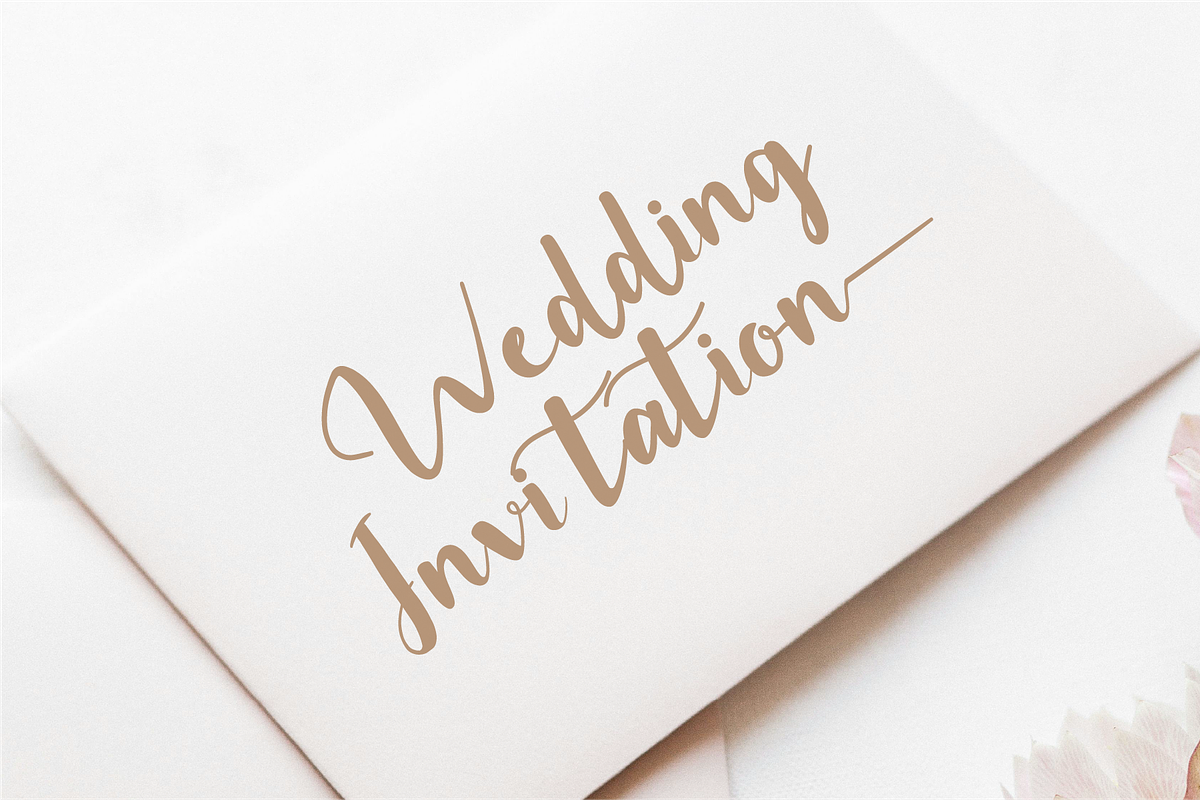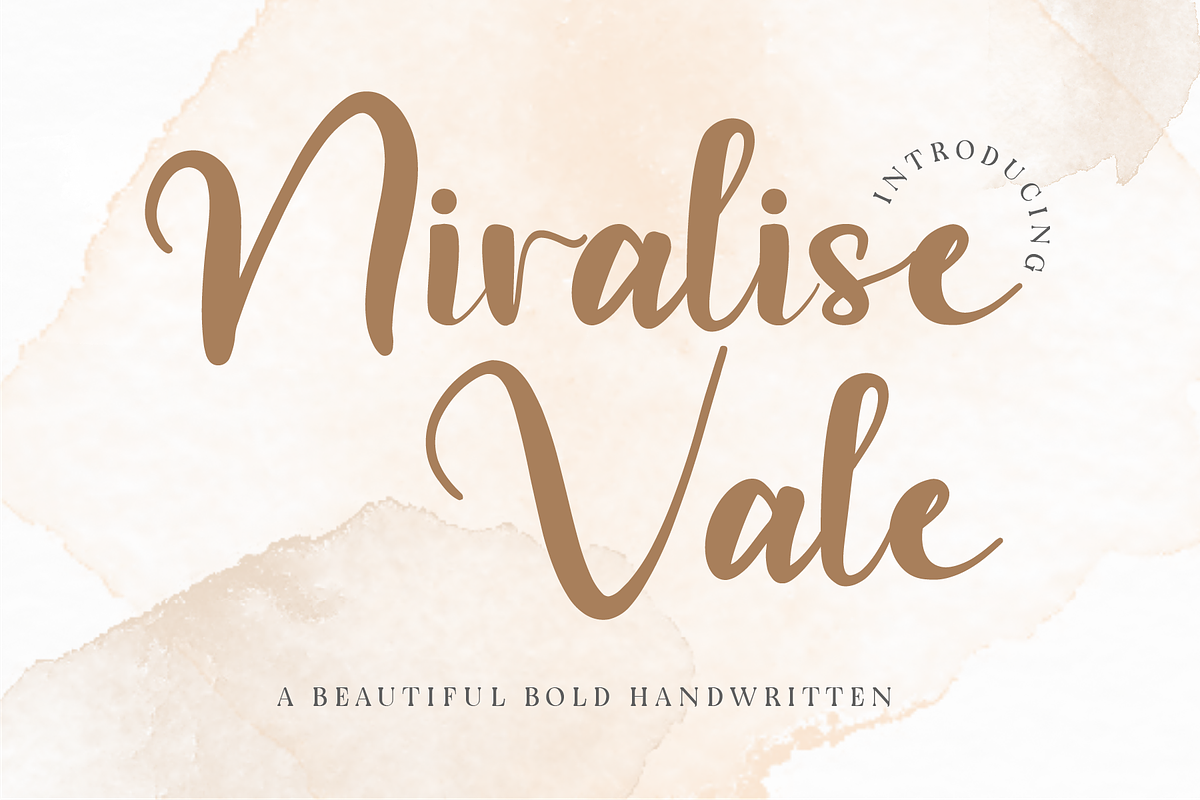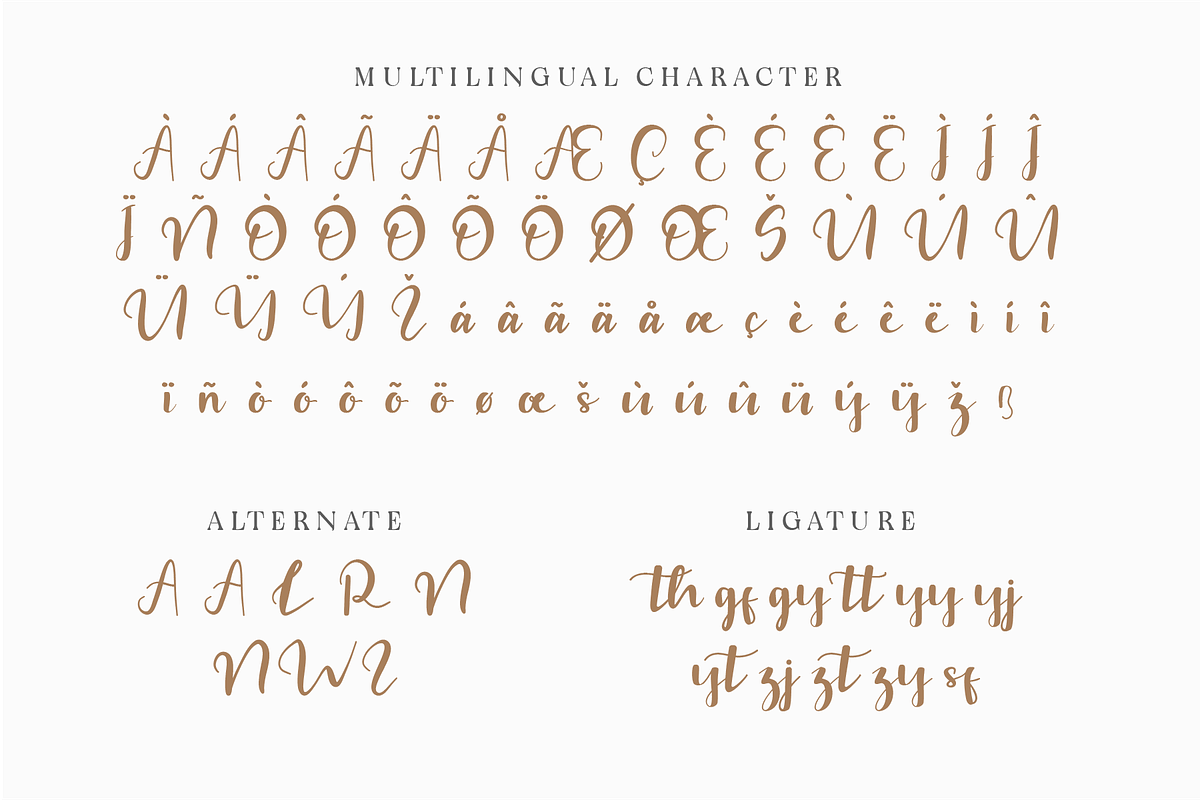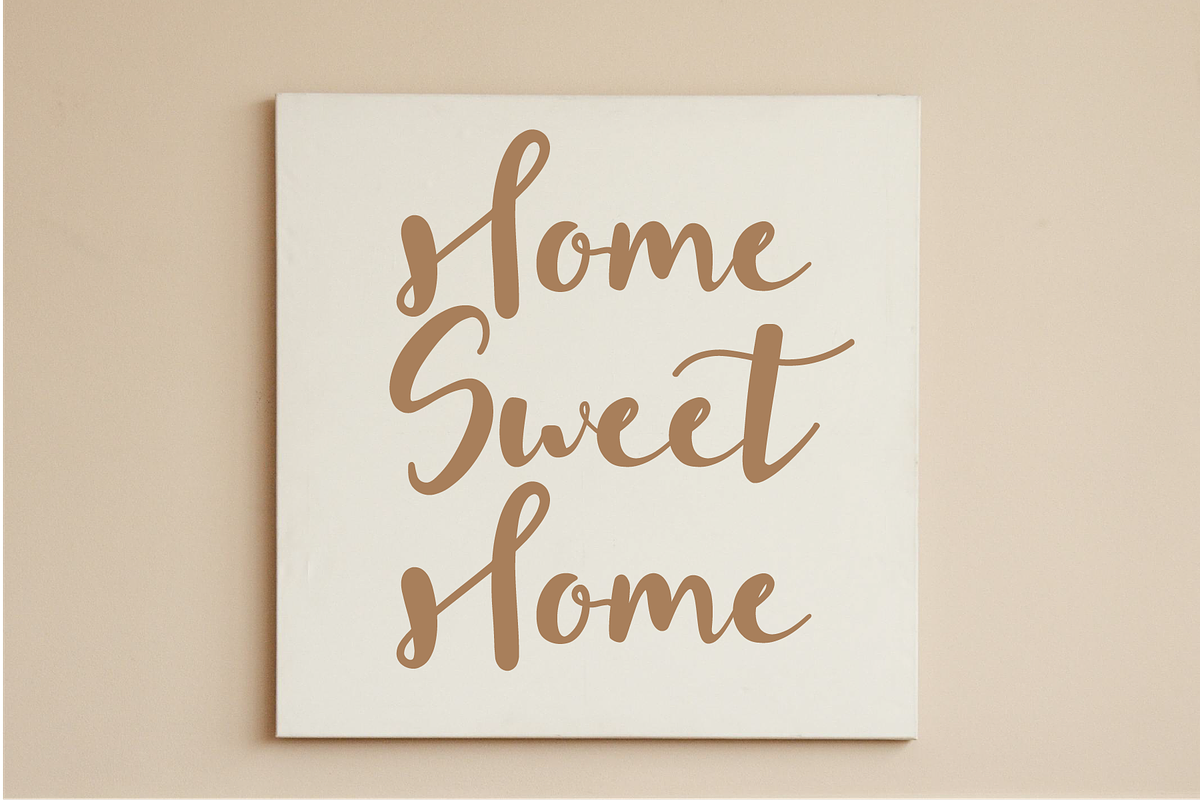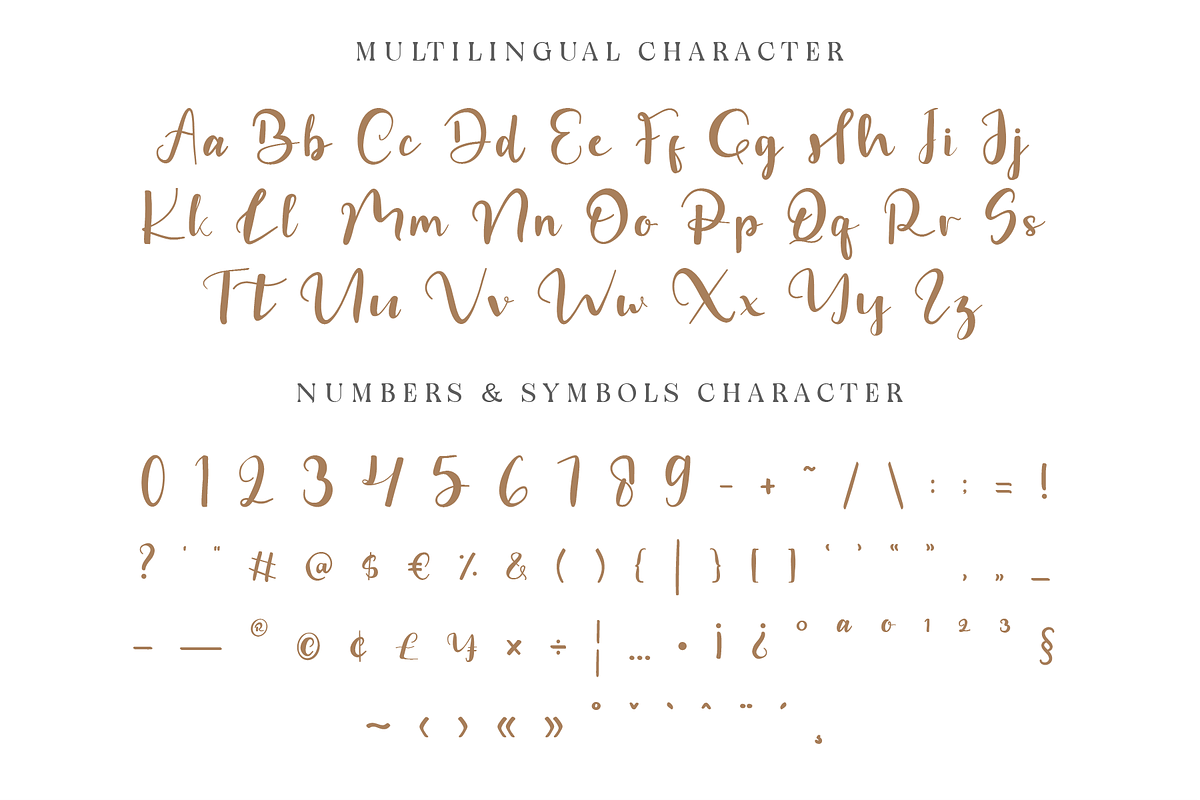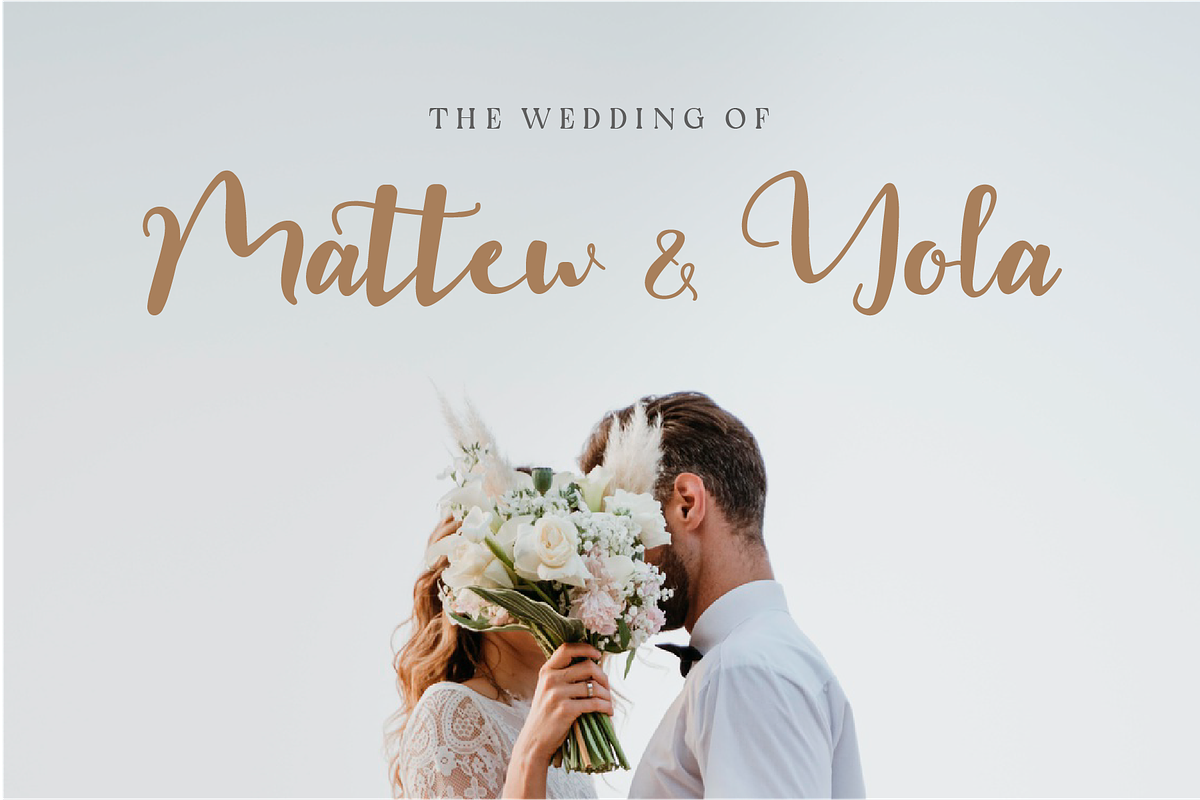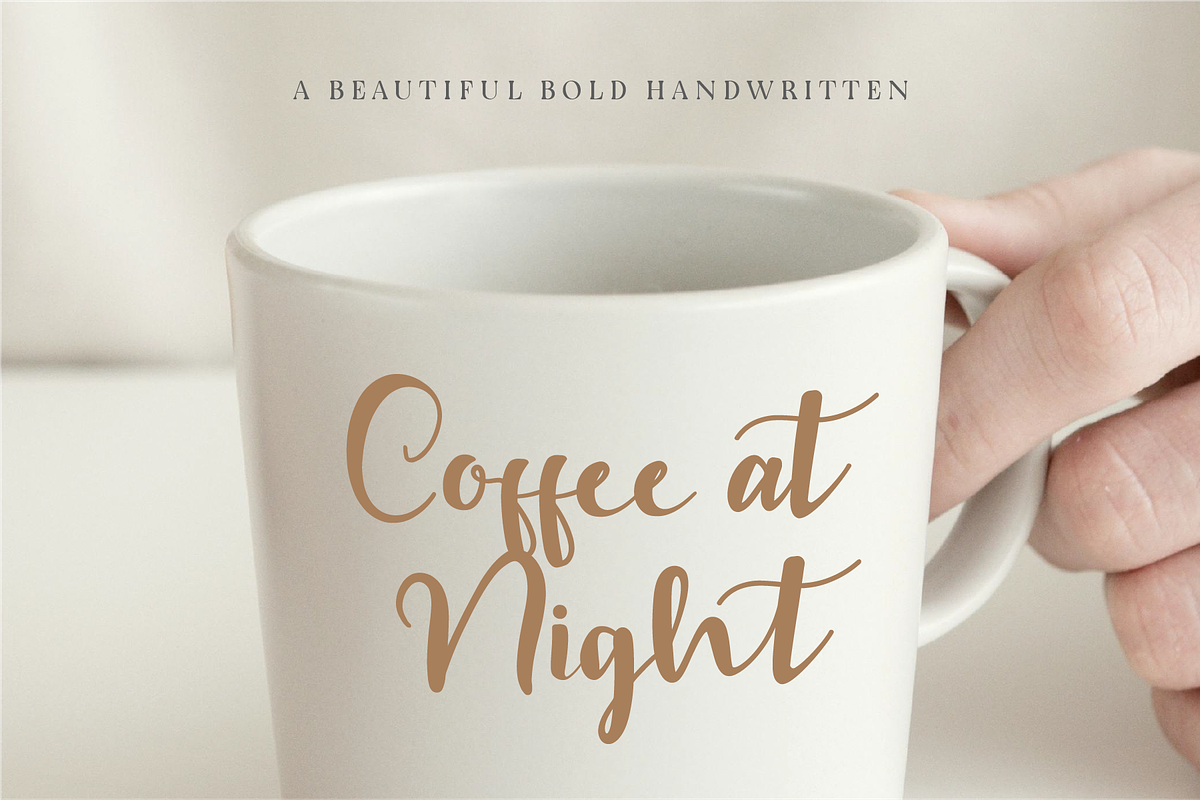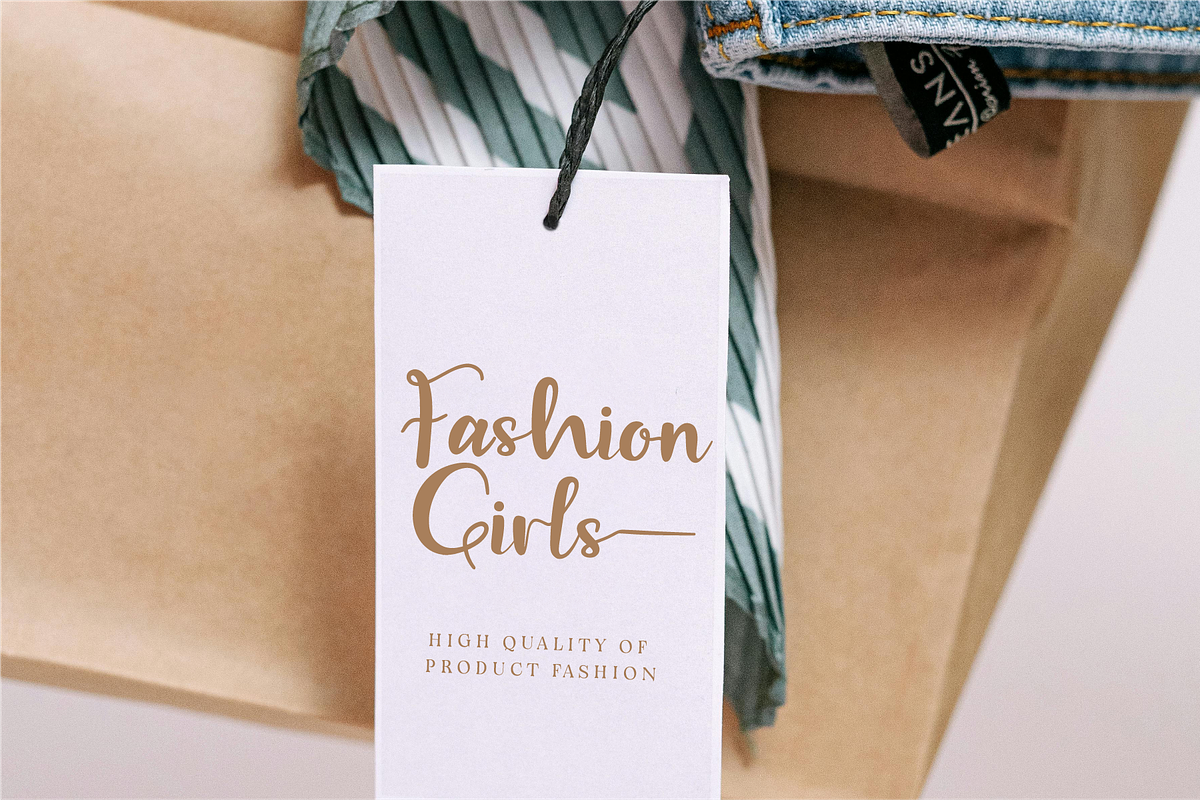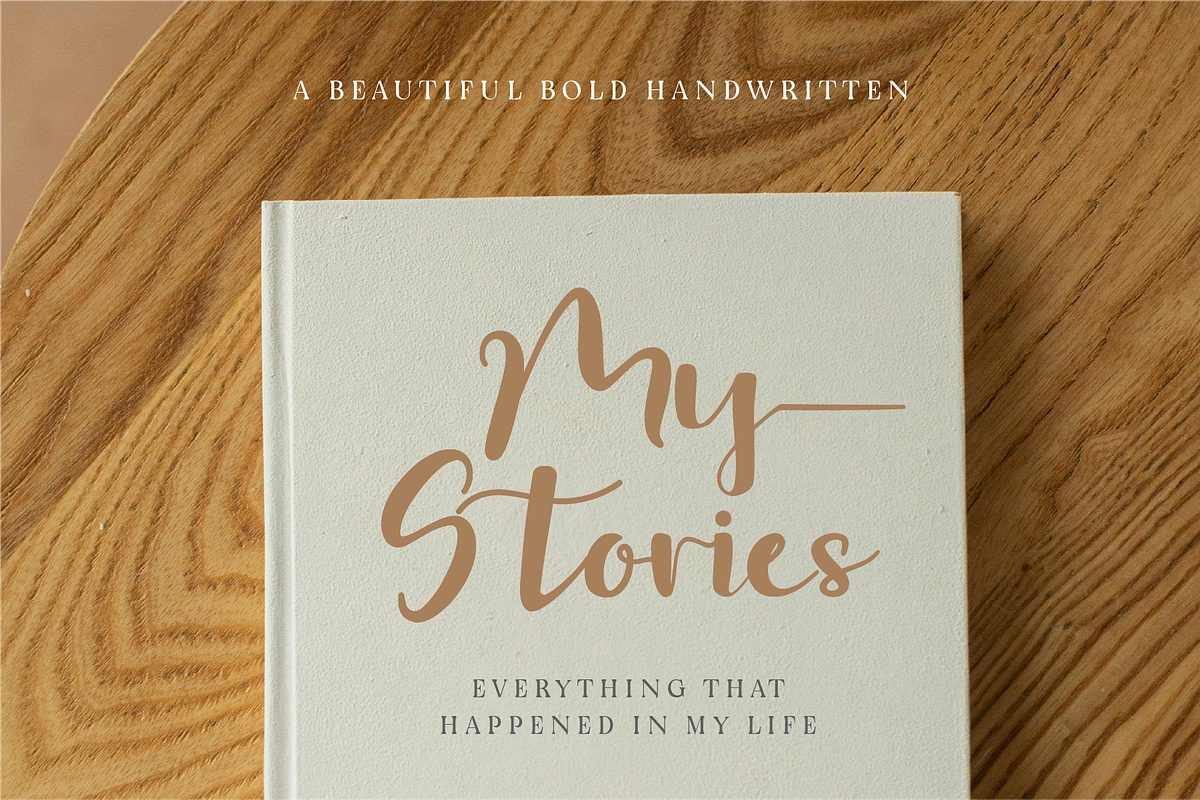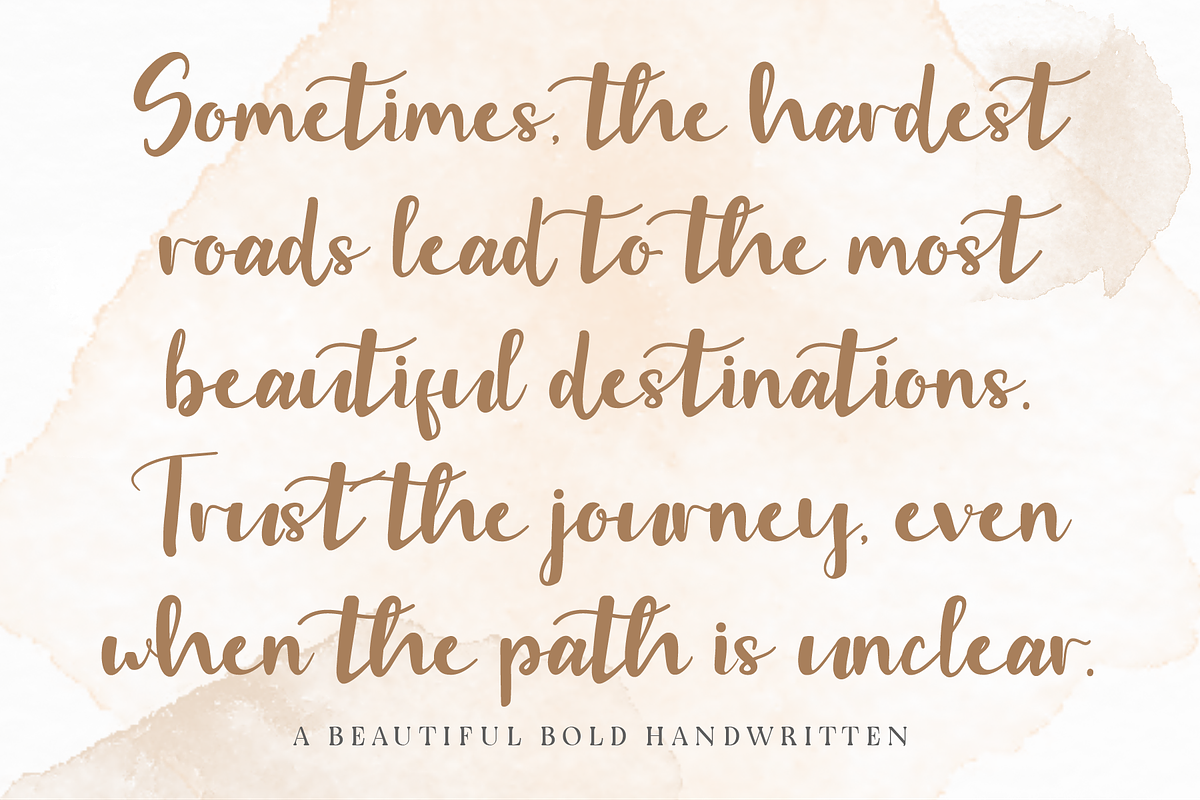
Niralise Vale - Elegant Script
Niralise Vale is a stunning script font that embodies a sense of elegance and bold creativity. Its design exudes a whimsical charm, perfect for those seeking to add a touch of sophistication to their projects. The font seamlessly blends graceful curves with bold, confident strokes, capturing the essence of hand-lettered artistry. With its flowing letterforms and balanced proportions, Niralise Vale feels both contemporary and timeless. The playful yet refined nature of the font makes it ideal for wedding invitations, branding, social media posts, and other design endeavors that require a distinctive personal touch. Whether you're looking to evoke romance, creativity, or luxury, Niralise Vale rises to the occasion.